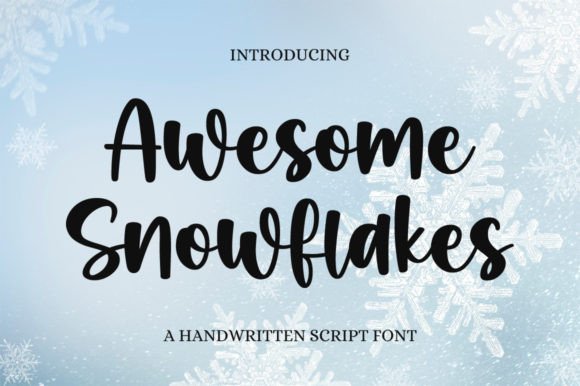
Introducing the captivating and enchanting Awesome Snowflakes Font, a true masterpiece crafted by the talented team at Graphix Line Studio. This delicate and elegant handwritten font is here to elevate your designs and add a touch of beauty and grace to your creative projects.
With its flowing and well-balanced characters, Awesome Snowflakes Font is the perfect choice for any beauty brand looking to make a lasting impression. Whether you're creating a stunning logo, designing captivating packaging, or crafting eye-catching social media posts, this font will effortlessly enhance your brand's aesthetic.
Capture the essence of elegance and sophistication with Awesome Snowflakes Font. Its unique script style brings a sense of luxury and exclusivity to your designs, instantly captivating your audience. Every stroke of this font exudes creativity and professionalism, making it a must-have for designers and entrepreneurs alike.
Stand out from the crowd and let Awesome Snowflakes Font be your secret weapon. Its versatility allows it to seamlessly blend with any design concept, giving you the freedom to explore endless possibilities. From wedding invitations to fashion magazines, this font effortlessly adapts to any project, leaving a lasting impression on your audience.
Immerse yourself in a world of creativity and let Awesome Snowflakes Font be your muse. Its graceful curves and intricate details evoke a sense of emotion and beauty, making it the perfect choice for any design that aims to captivate hearts. Add a touch of magic to your creations and watch as they come to life with this truly awe-inspiring font.